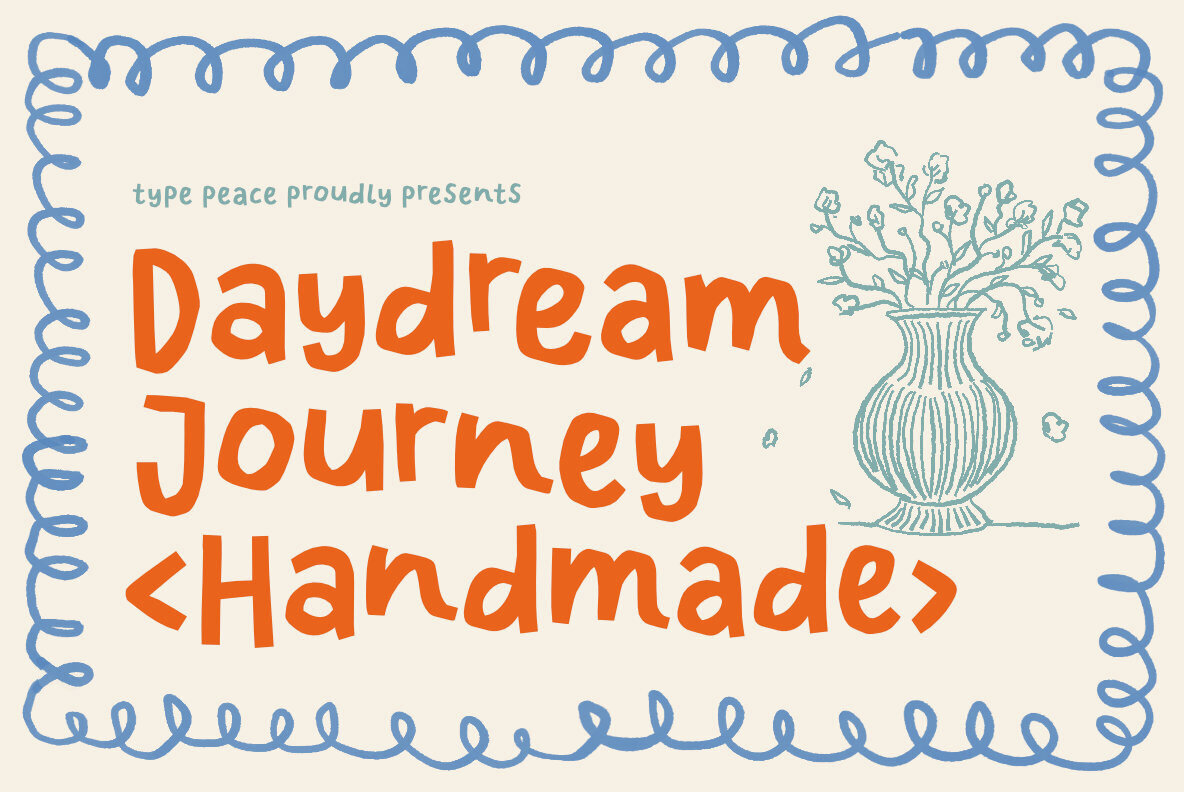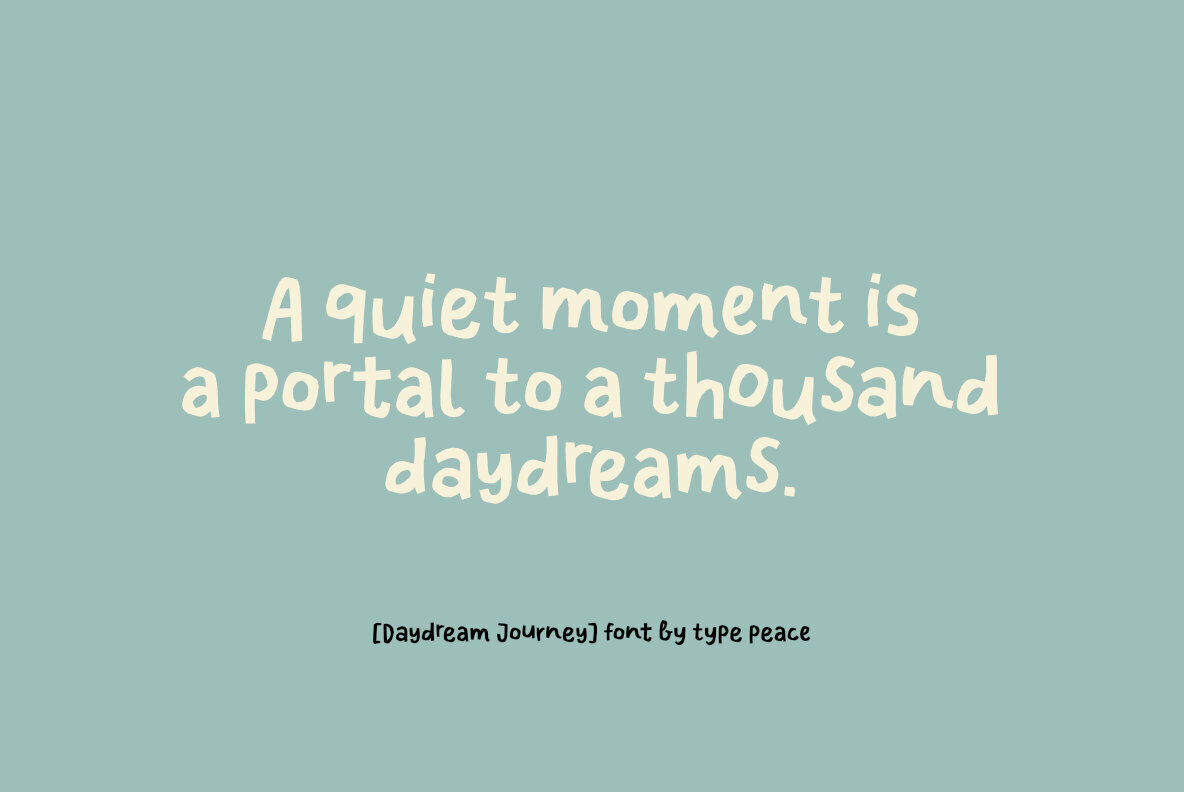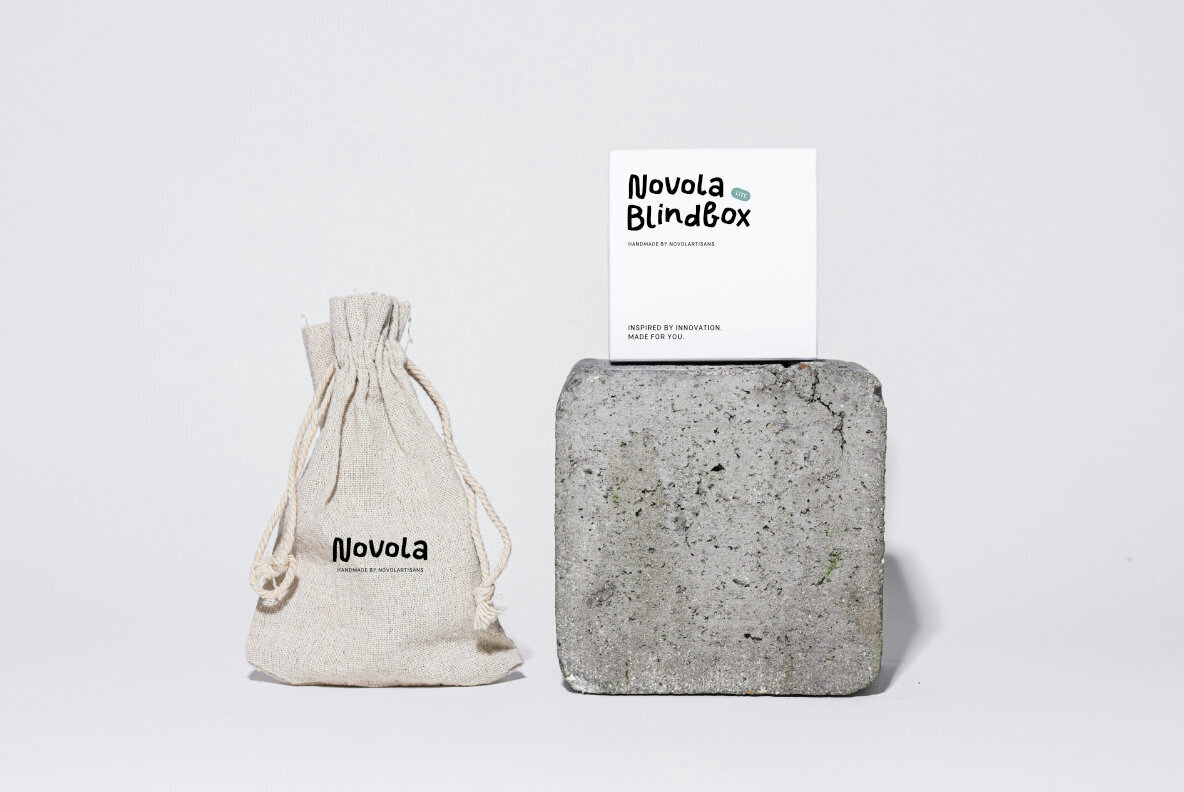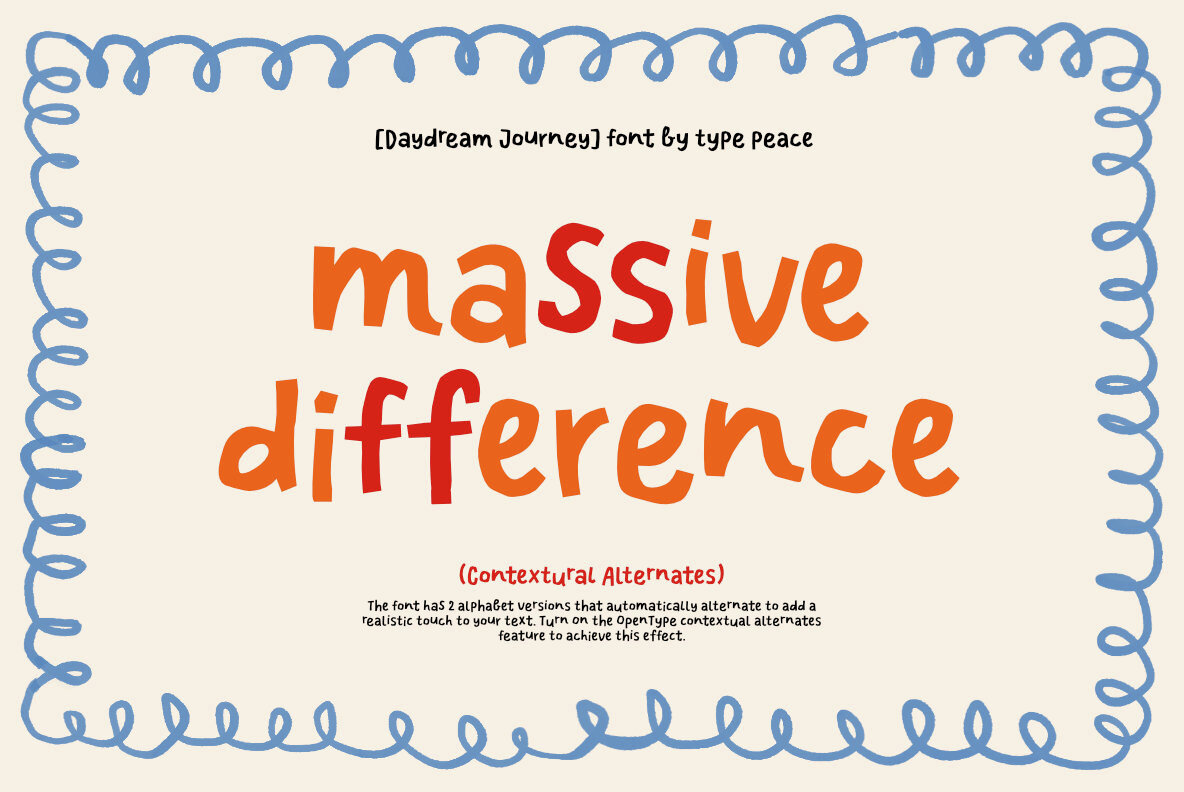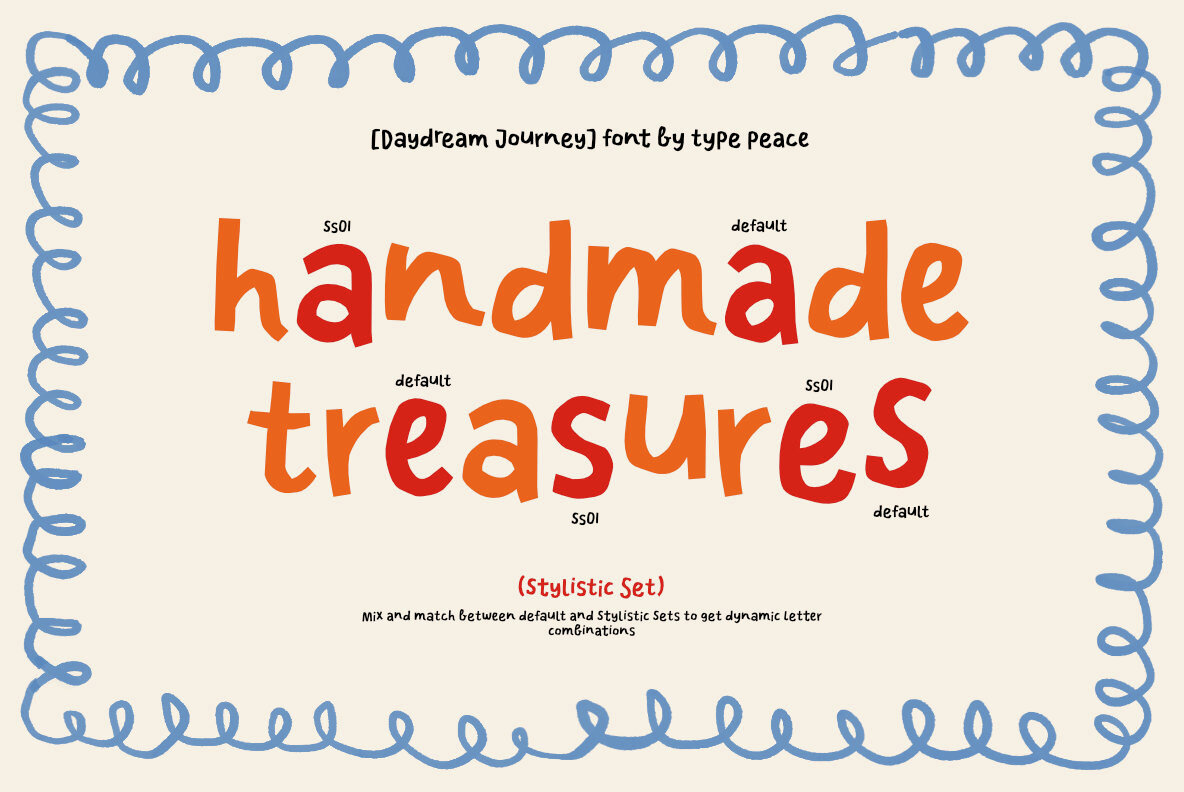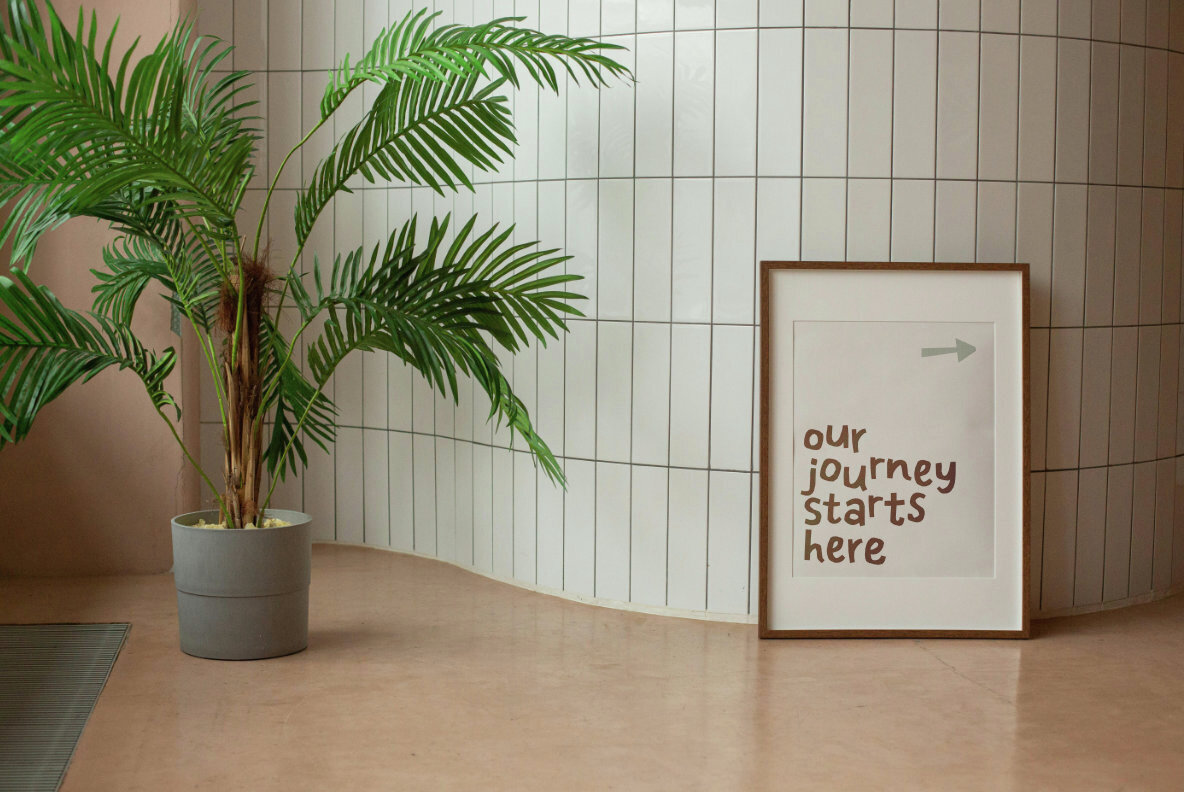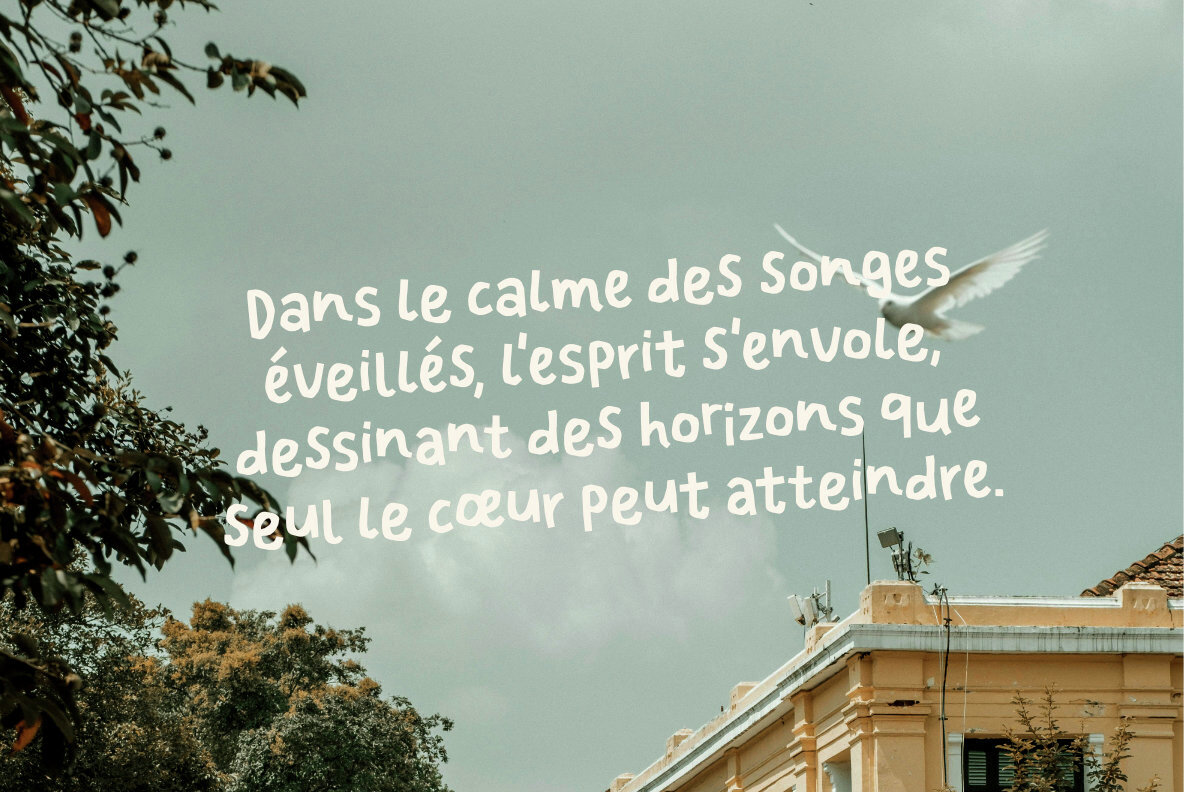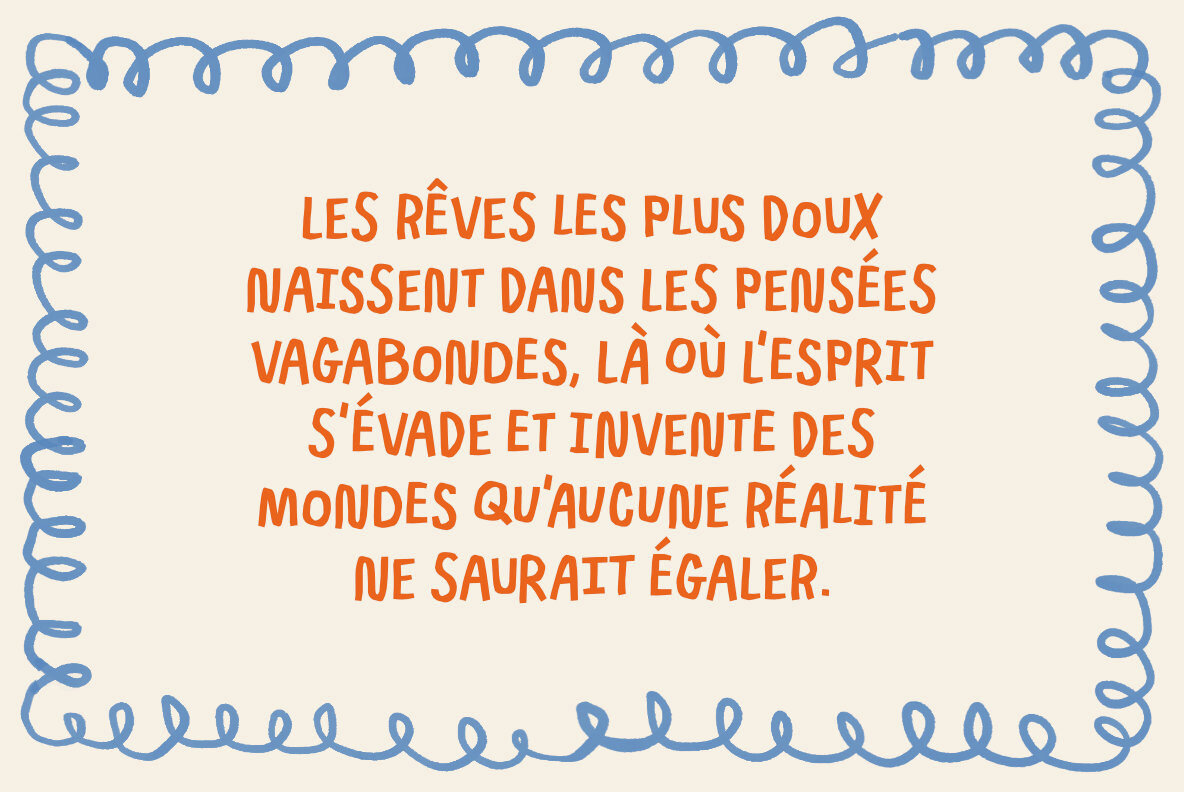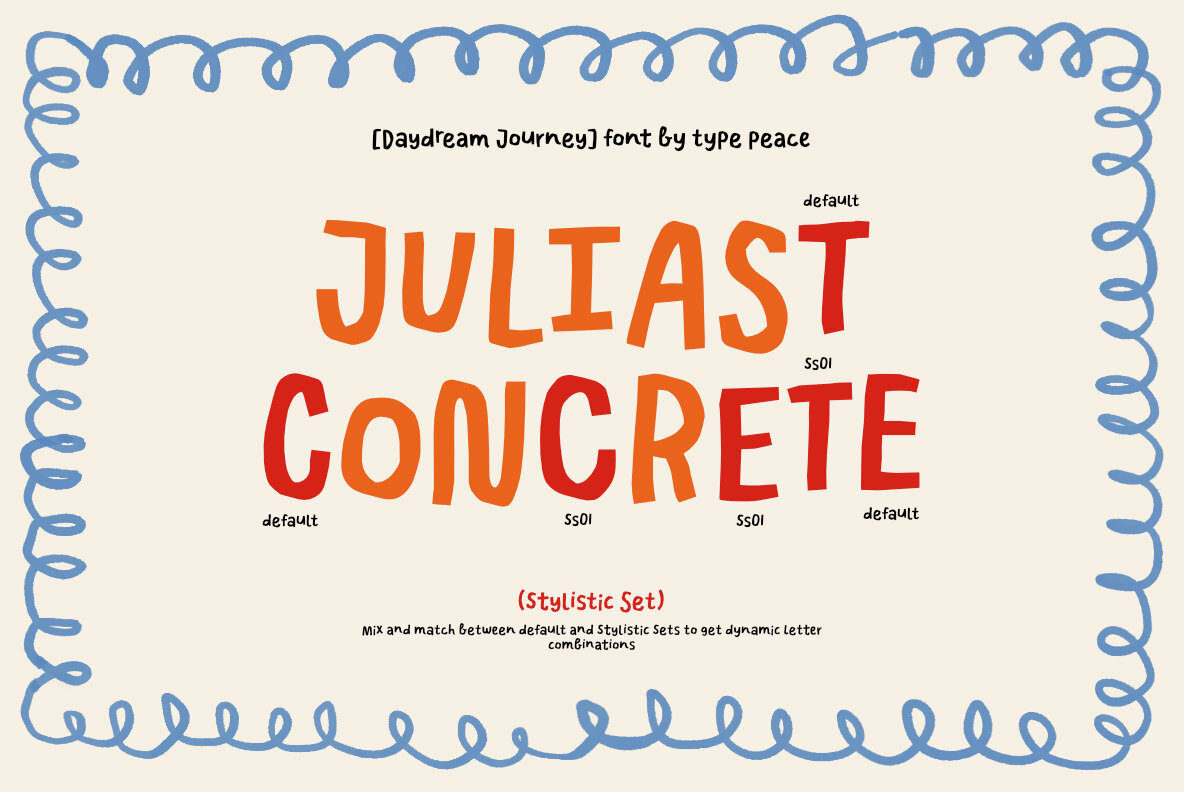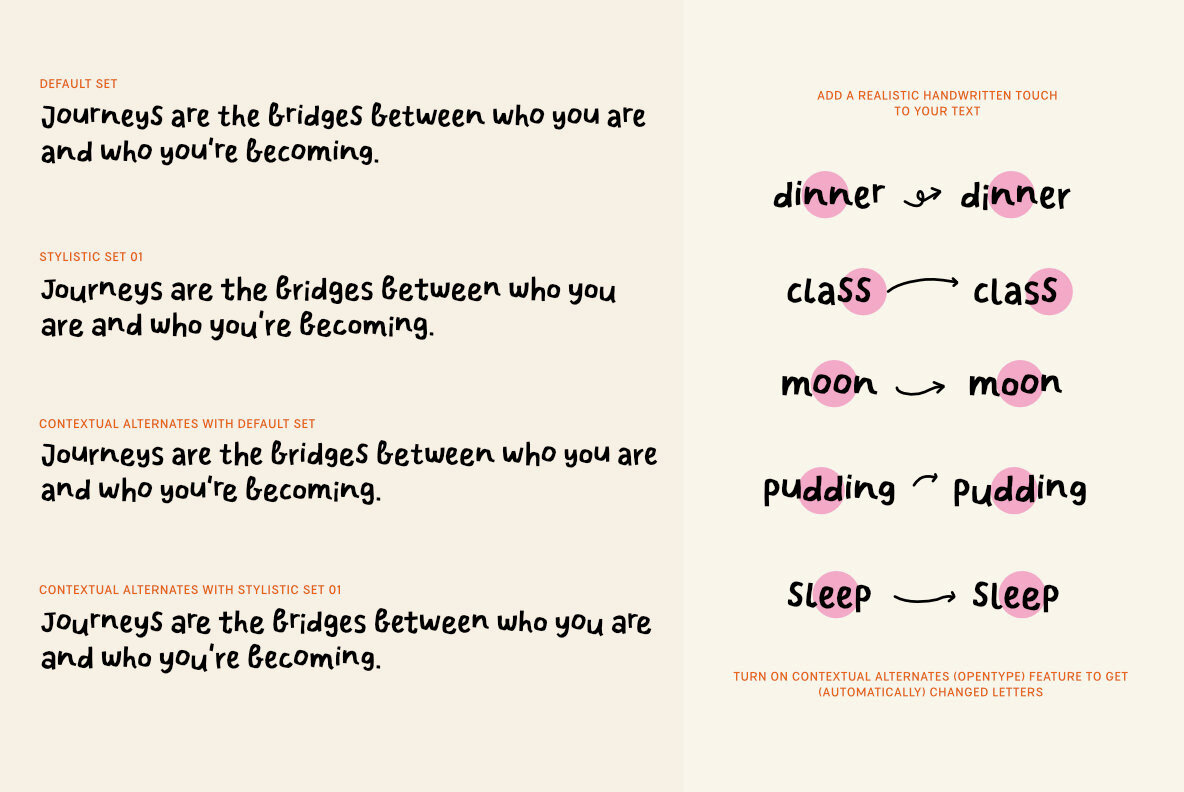
Daydream Journey Font
Daydream Journey Regular
Daydream Journey is a multilingual unique handmade typeface inspired by the charm of crafts and the playful edges of papercut shapes. Perfect for adding a personal, artisanal touch to your designs, from stationery to branding. Enable the OpenType Contextual Alternates feature to alternate between different letter versions, giving your text an authentic and dynamic feel. Font features: